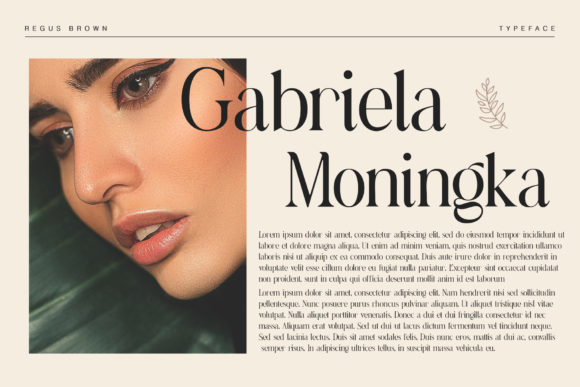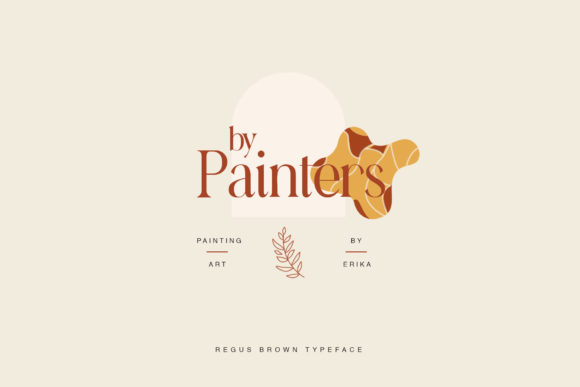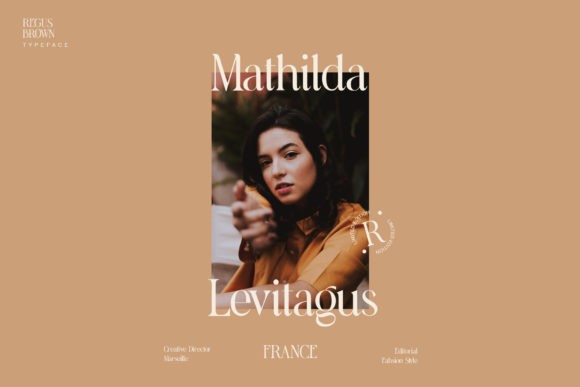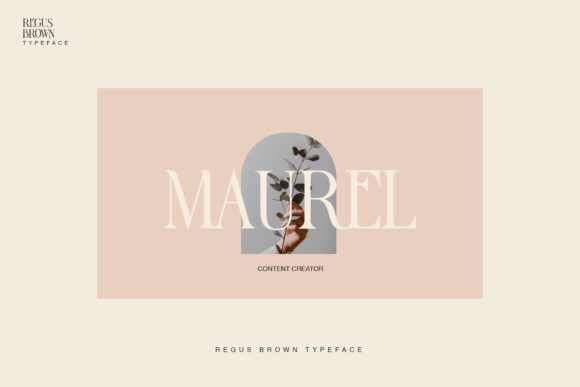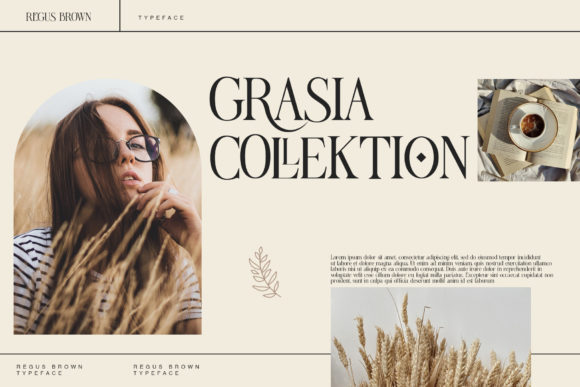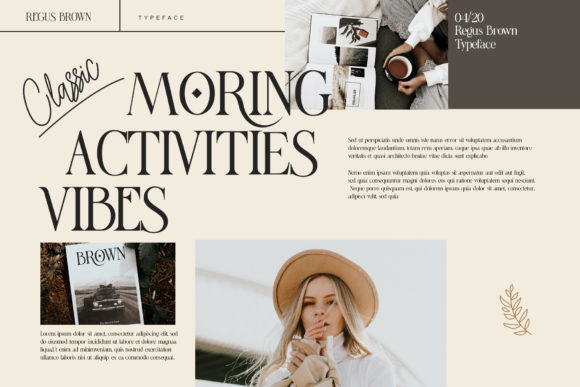
Introduction to Regus Brown Font
Imagine you’re brainstorming a new creative project, and you’re struggling to find the perfect font to match your vision. You browse through countless design resources, but nothing seems to capture the essence of your idea. That’s where the Regus Brown Font comes in – a modern, tall, and classic serif font that’s sure to elevate your design to the next level.
With its classy and elegant look, the Regus Brown Font is an invaluable asset for designers. Whether you’re working on logos, branding, invitations, stationery, wedding designs, or social media posts, this font is sure to impress. Plus, its versatility makes it a great addition to any design project. And the best part? You can download it for free, giving you the flexibility to work with a high-quality design resource without breaking the bank.
Get ready to discover the perfect blend of style and sophistication with the Regus Brown Font – your new go-to design companion.
Key Features of Regus Brown Font
- High-quality, professional font design perfect for creative projects and presentations
- Unique, stylish design with a transparent background, allowing for seamless integration with any image or background
- Unique characteristics: Regus Brown Font features a unique blend of modern and vintage elements, making it perfect for creative projects that require a touch of sophistication and elegance
- Designed to be highly legible, making it an excellent choice for presentations, posters, and other visual materials
As a designer, I’ve had the pleasure of working with numerous design resources, and I’m excited to share my thoughts on the Regus Brown Font. This font is a fantastic addition to any creative project, offering a unique and elegant touch.
What works well: ✨ The Regus Brown Font features a sleek and modern design, making it perfect for corporate branding, editorial content, and even web design. The font’s high quality is evident in its crisp lines and well-balanced letterforms.
What I appreciate most about this font is its versatility. It’s available for free download, which is a huge plus for designers on a budget. The transparent background also makes it easy to use as a standalone element or layer it with other design elements.
Limitations: ⚠️ While the Regus Brown Font is a great choice for many projects, it may not be suitable for projects that require a more playful or whimsical tone. Additionally, the font’s limited character set may require designers to use additional fonts to complete their project.
Overall, I’m thoroughly impressed with the Regus Brown Font. Its high quality, elegant design, and versatility make it a valuable addition to any design library.
- Suitable for corporate branding, editorial content, and web design
The Regus Brown Font is commonly used in logos, brochures, marketing materials, and presentations. Its high-quality design and transparent background make it a popular choice among designers and marketers. Whether you’re working on a creative project or need a reliable design resource, the Regus Brown Font is a great option.